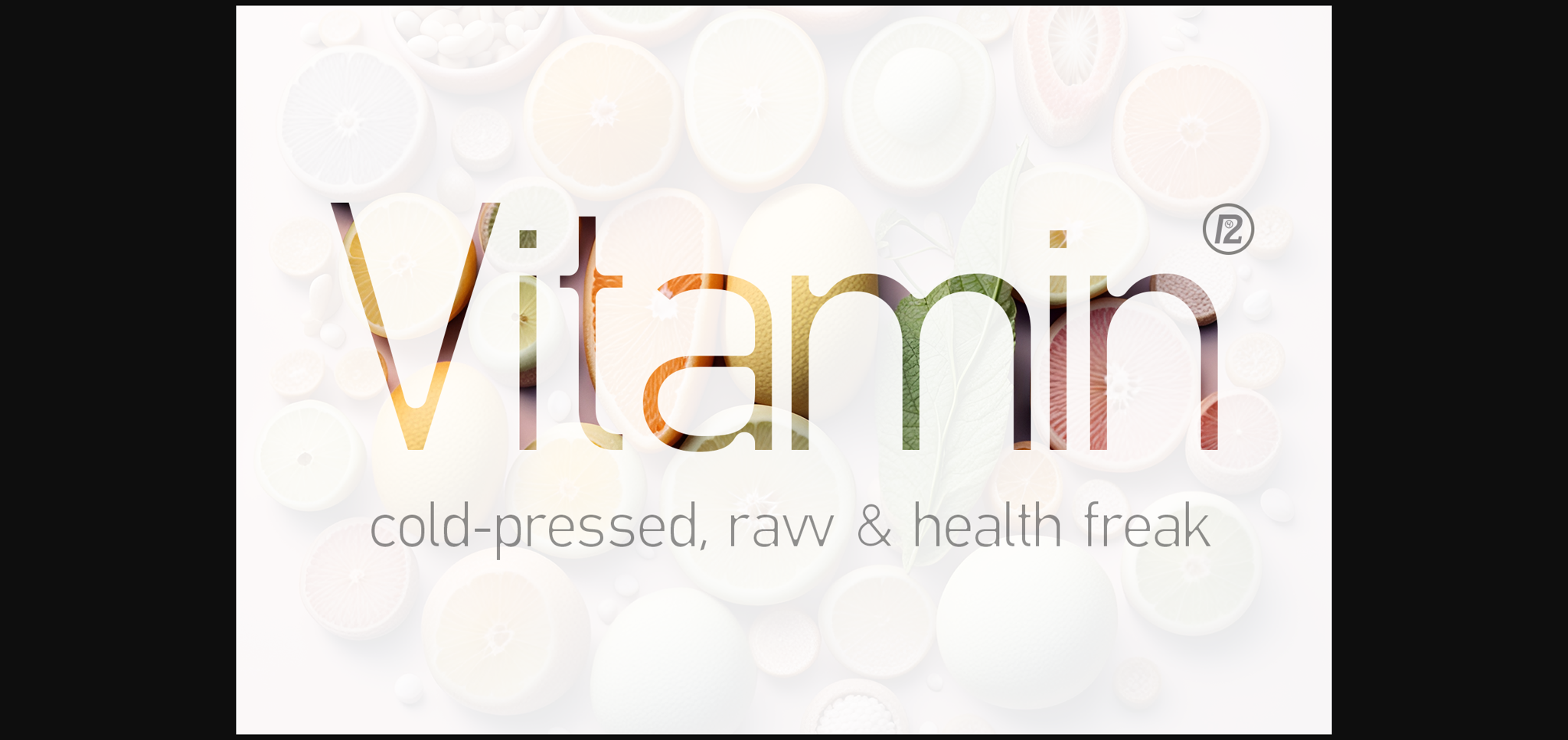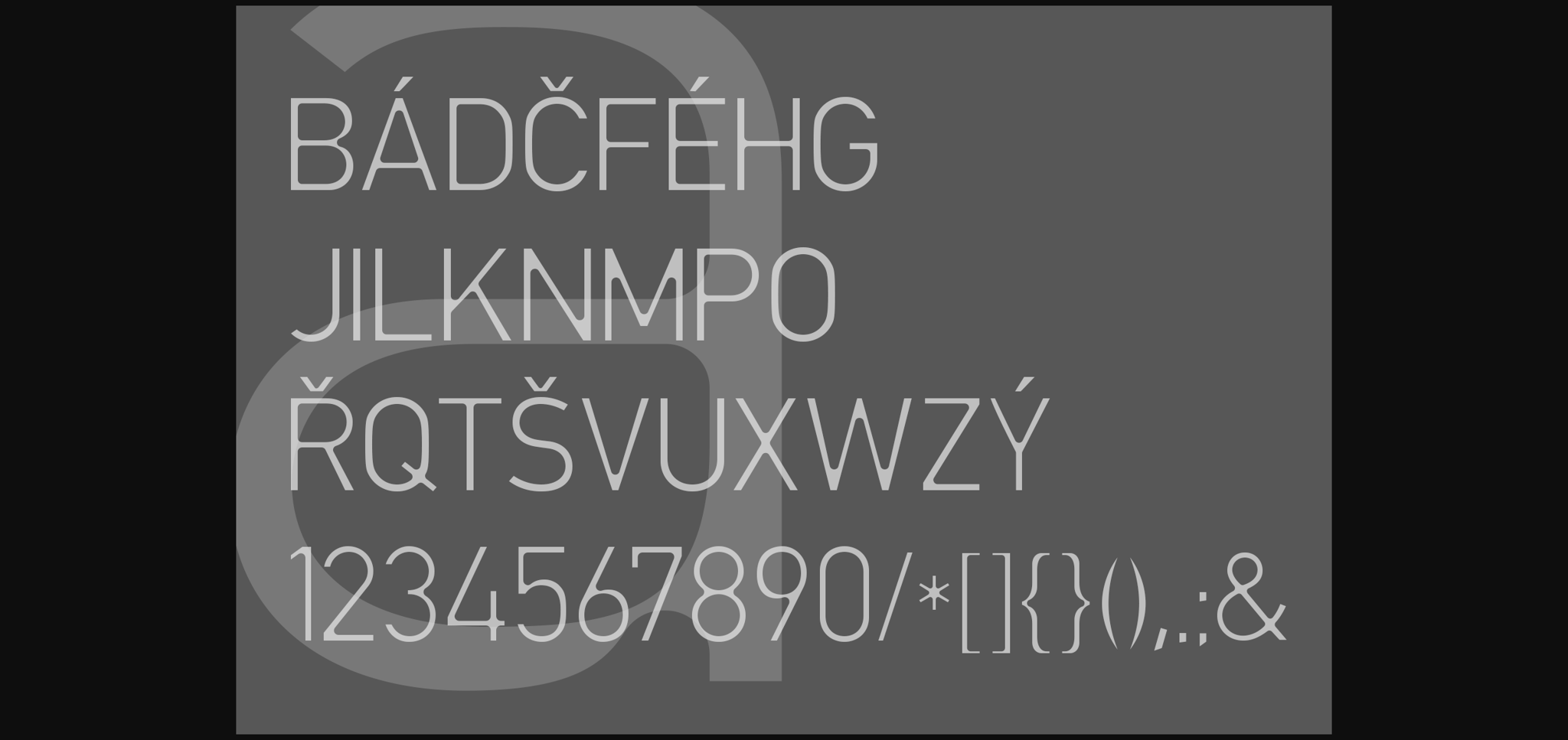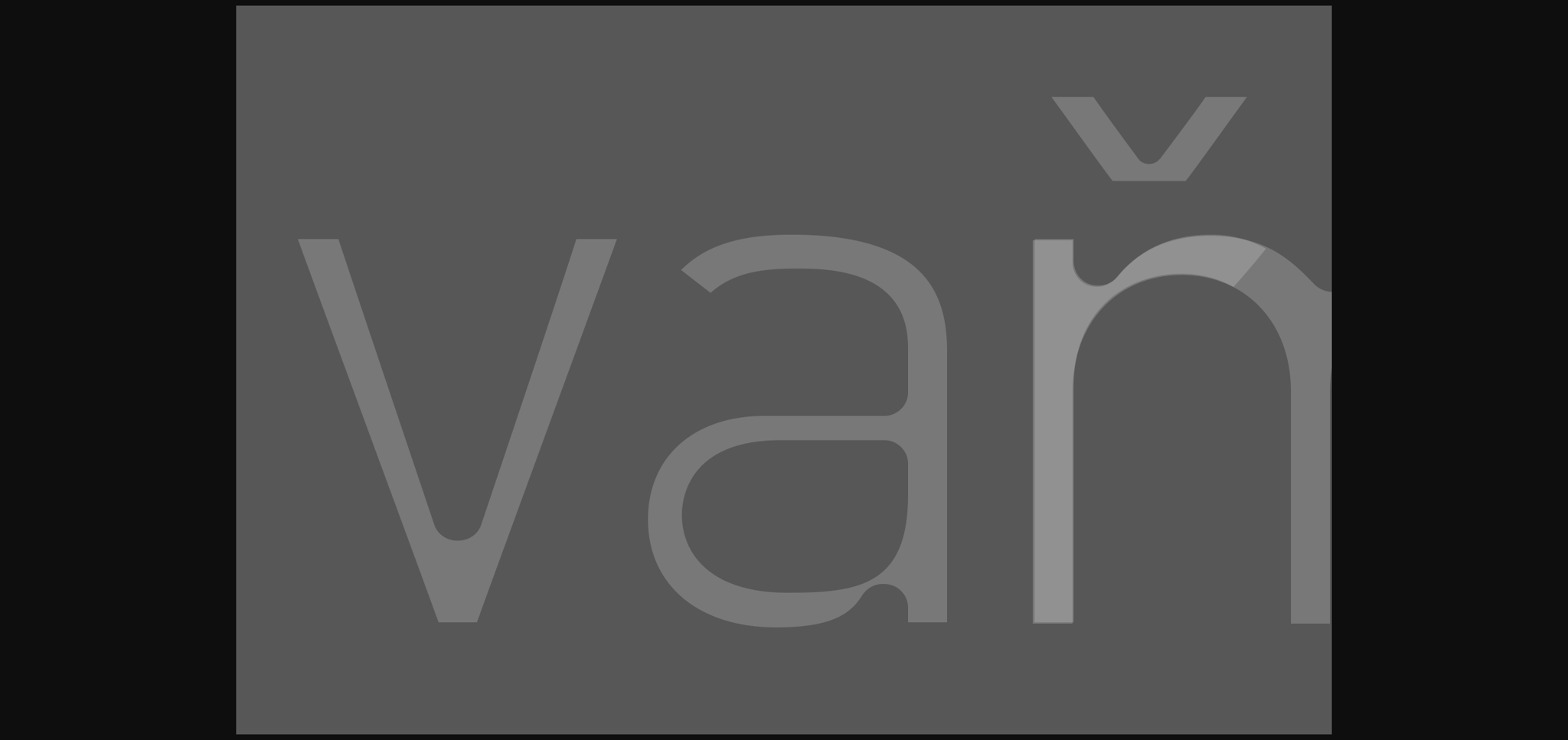
About Vitamin Font
Thin, cold-pressed, raw & health-freak ready. It has been used in early 2000’s for computer game magazines (LEVEL), flyers, psoters and medical product package design. However, it has been of no use in past decade. Combination with DIN typeface is possible and suggested.